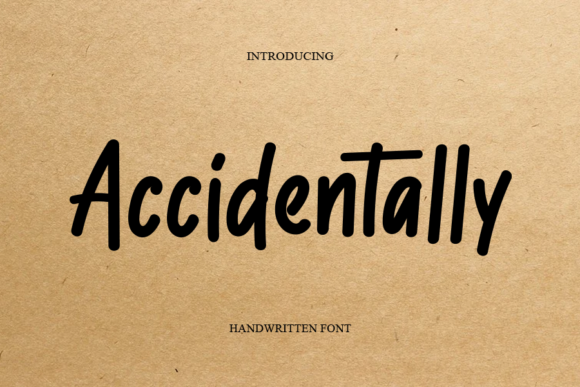
The Accidental Masterpiece: Accidentally Font
We’ve all been there – staring at a blank page, trying to spark that creative spark. You take a deep breath, pick up your pen, and let your imagination run wild. The words start flowing, and before you know it, you’ve created something truly unique and special. That’s exactly what happened with the Accidentally Font – a beautiful, handwritten font that’s full of character and charm.
Accidentally Font is more than just a font – it’s a design companion that’s perfect for a wide range of projects. From invitations and greeting cards to branding and advertising, its natural and friendly style makes it incredibly versatile. Whether you’re a seasoned designer or just starting out, Accidentally Font is a valuable addition to your toolkit.
Key Features of Accidentally Font
- Unique Characteristics: Accidentally Font features a unique blend of handwritten and digital elements, giving it a distinctive and eye-catching appearance. The font is perfect for adding a touch of personality to designs, from logos and branding to advertising and marketing materials.
Accidentally Font Review
When I first laid eyes on Accidentally Font, I was intrigued by its quirky, playful vibe ✨. The font’s eclectic mix of styles and font weights is reminiscent of a mashup of different design eras, which can be a lot of fun to work with.
Here are some of the things that work well with Accidentally Font:
- Its bold and bold italic weights are particularly striking, and can add a lot of visual interest to headings and titles ✨.
- The font’s irregularities and imperfections can add a touch of humanity and character to digital designs.
- It’s highly legible, even at small font sizes.
However, there are also some limitations to consider ⚠️:
- The font’s irregularities can also make it difficult to use in situations where precision and consistency are crucial.
- The font’s many styles and weights can be overwhelming to navigate, especially for designers who are new to working with variable fonts.
- It may not be the best choice for body text, where readability and consistency are key.
Overall, I think Accidentally Font is a great choice for designers who want to add a bit of personality and whimsy to their projects ✨. However, it may not be the best fit for every project, and designers should be aware of its limitations before using it.
Accidentally Font is perfect for creating playful and whimsical designs, such as invitations, social media graphics, and advertisements.
It’s also great for adding a touch of humor or irony to your designs, such as in memes or satire.